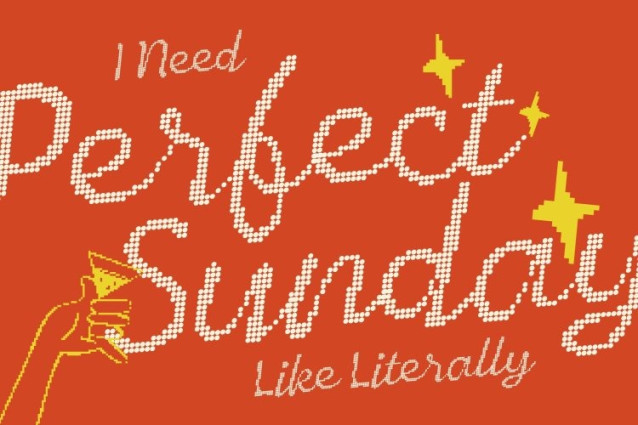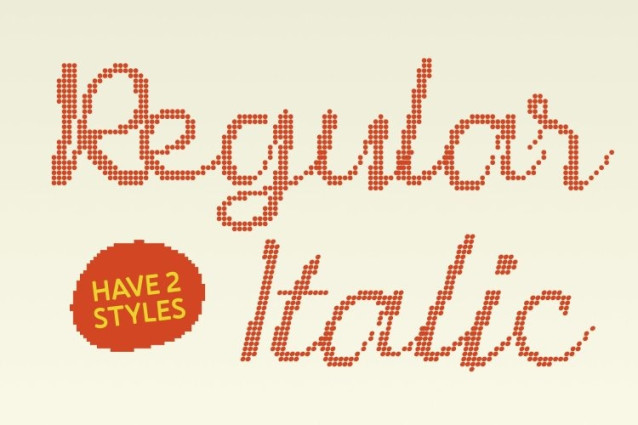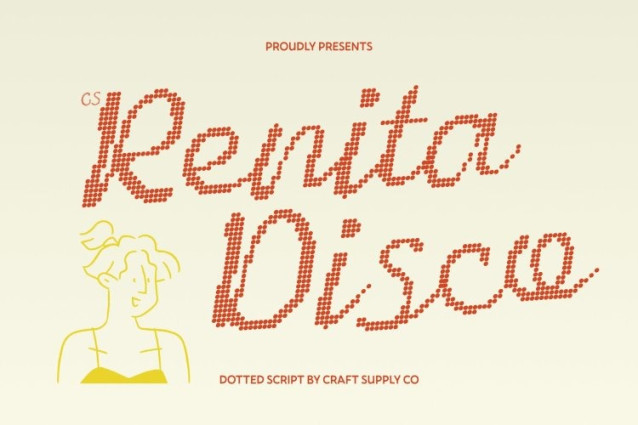
CS Renita Disco Font
CS Renita Disco Font – This is a graceful script font that blends flowing handwritten elegance with a lively disco-style dotted texture. Its smooth strokes and refined curves create a sophisticated and expressive silhouette, while the dotted surface adds a subtle sparkle that enhances the font’s decorative charm.
Flowing Curves with Luminous Character
Each letterform reflects the beauty of natural handwriting, featuring fluid connections and elegant movement. The disco-inspired dotted texture introduces depth and rhythm to the strokes, giving the script a vibrant personality while preserving its graceful readability.
Handwritten Luxury with Expressive Style
This font captures the warmth and intimacy of handwritten calligraphy while adding a modern decorative twist. The harmonious balance between smooth script forms and textured sparkle creates typography that feels both luxurious and lively.
Perfect for Weddings, Fashion, and Elegant Branding
This font shines in wedding invitations, event stationery, fashion branding, luxury packaging, and editorial designs. Its elegant script structure brings sophistication to formal layouts, while the shimmering dotted effect adds a distinctive visual accent that elevates creative compositions.